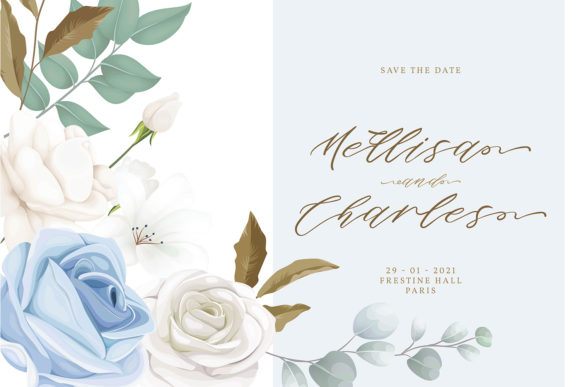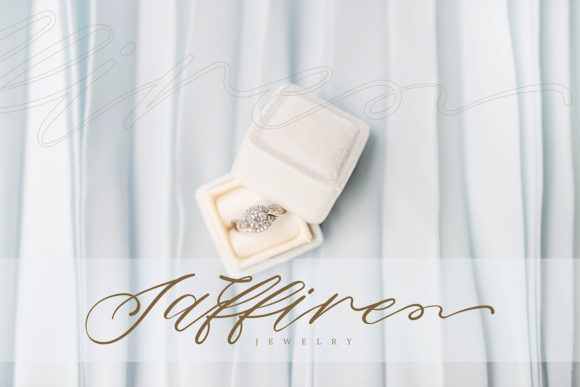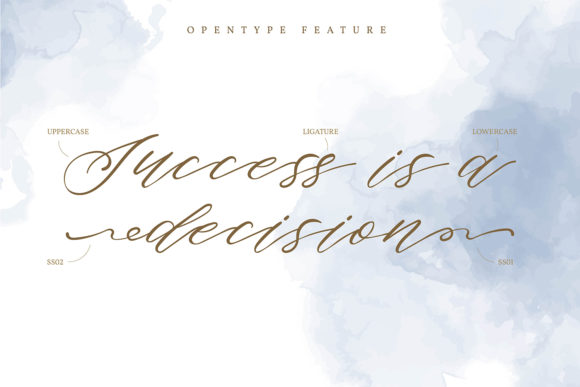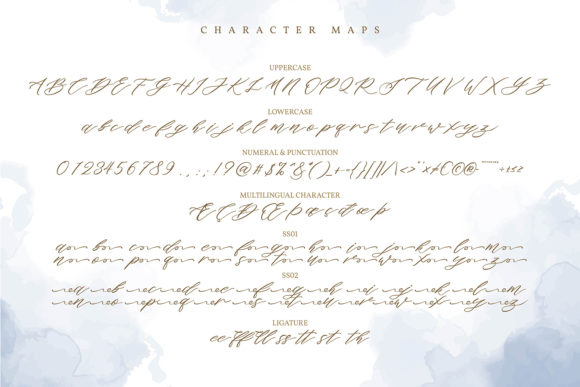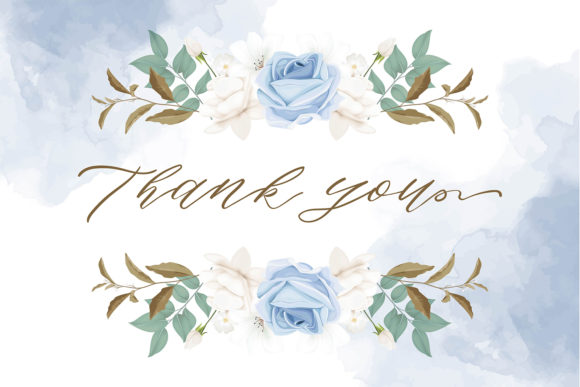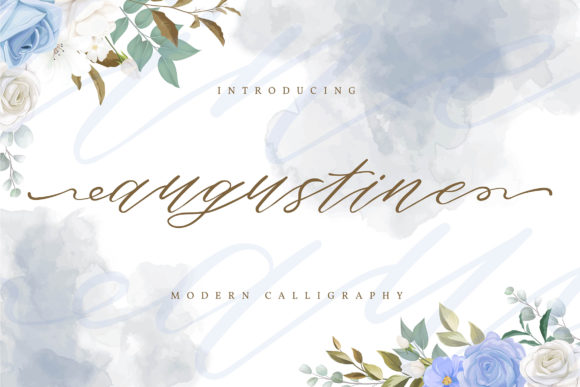
Discover the Elegance of Augustine Font: A Versatile Cursive Handwritten Font
Are you looking for a font that exudes elegance, delicacy, and sophistication? Look no further than the Augustine Font. This beautiful cursive handwritten font is perfect for designers and crafters who want to add a touch of luxury to their projects. In this article, we’ll explore the features and benefits of the Augustine Font, and show you how to make the most of its incredibly versatile style.
What is Augustine Font?
Augustine Font is an elegant, delicate, and cursive handwritten font that is perfect for a wide range of design projects. Its beautiful, flowing script is reminiscent of traditional calligraphy, but with a modern twist that makes it perfect for contemporary designs. Whether you’re creating wedding invitations, stationery, social media posts, or any other type of design project, Augustine Font is sure to impress.
Key Features of Augustine Font
- Elegant and Delicate Design: Augustine Font features a beautiful, cursive script that is both elegant and delicate. Its intricate details and flowing lines make it perfect for designs that require a touch of sophistication.
- Versatile Style: This font is incredibly versatile, making it perfect for a wide range of design projects. From wedding invitations to social media posts, Augustine Font can be used to create stunning designs that are sure to impress.
- PUA Encoded: Augustine Font is PUA encoded, which means that you can access all of the glyphs and swashes with ease. This makes it easy to customize your designs and add unique touches that make your projects stand out.
Uses for Augustine Font
Augustine Font is perfect for a wide range of design projects, including:
- Wedding Invitations: Create beautiful, elegant wedding invitations that set the tone for a sophisticated and luxurious wedding.
- Stationery: Use Augustine Font to create stunning stationery, including letterheads, notecards, and journals.
- Social Media Posts: Add a touch of elegance to your social media posts with Augustine Font. Perfect for businesses, influencers, and bloggers who want to stand out from the crowd.
- Signage: Use Augustine Font to create beautiful signage, including menus, posters, and banners.
Tips for Using Augustine Font
Here are a few tips for getting the most out of Augustine Font:
- Experiment with Different Sizes: Augustine Font looks great in a variety of sizes, from small and delicate to large and bold. Experiment with different sizes to find the one that works best for your design.
- Pair with Other Fonts: Augustine Font pairs well with a variety of other fonts, including sans-serif fonts and serif fonts. Experiment with different pairings to find the one that works best for your design.
- Use Swashes and Glyphs: Take advantage of the PUA encoding in Augustine Font by using the swashes and glyphs to add unique touches to your designs.
Augustine Font is a beautiful, elegant, and versatile cursive handwritten font that is perfect for designers and crafters who want to add a touch of luxury to their projects. With its delicate design, versatile style, and PUA encoding, Augustine Font is sure to become a favorite in your font collection. Whether you’re creating wedding invitations, stationery, social media posts, or any other type of design project, Augustine Font is the perfect choice.